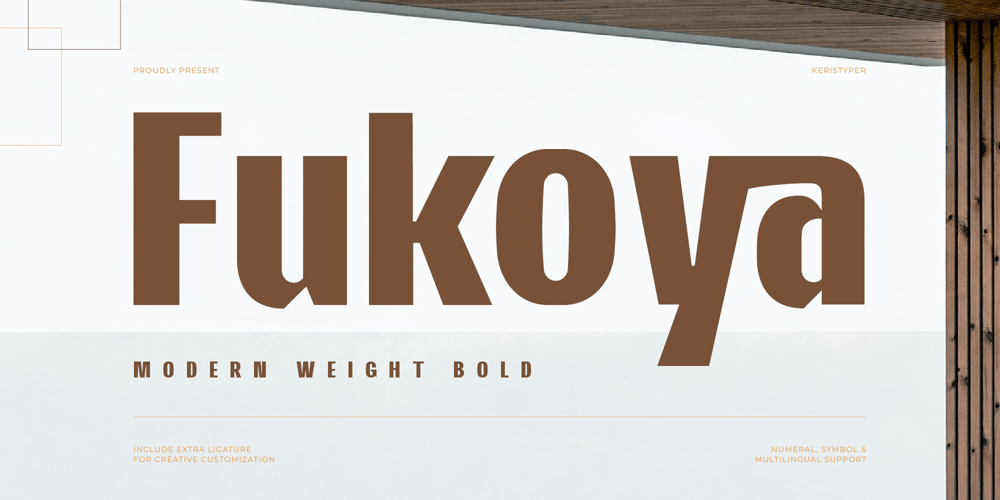
Fukoya Font Family was designed by Tezar Tantular and published by Keristyper Studio. Fukoya contains 1 styles and family package options. Fukoya is a bold font with a soft and confident impression, modern with a clean touch. This font is good for logo design, social media, movie and book titles, short text, even long text letters, and good for your secondary text font with the script, sans, or serif.Featured: Standard Uppercase & Lowercase Numeral & Punctuation Multilingual : ä ö ü Ä Ö Ü ß ¿ ¡ Alternates & Ligatures PUA encoded We recommend programs that support OpenType features and the Glyphs panel such as Adobe applications or Corel Draw so you can use all the variations of the glyphs.Hope you enjoy our fonts!